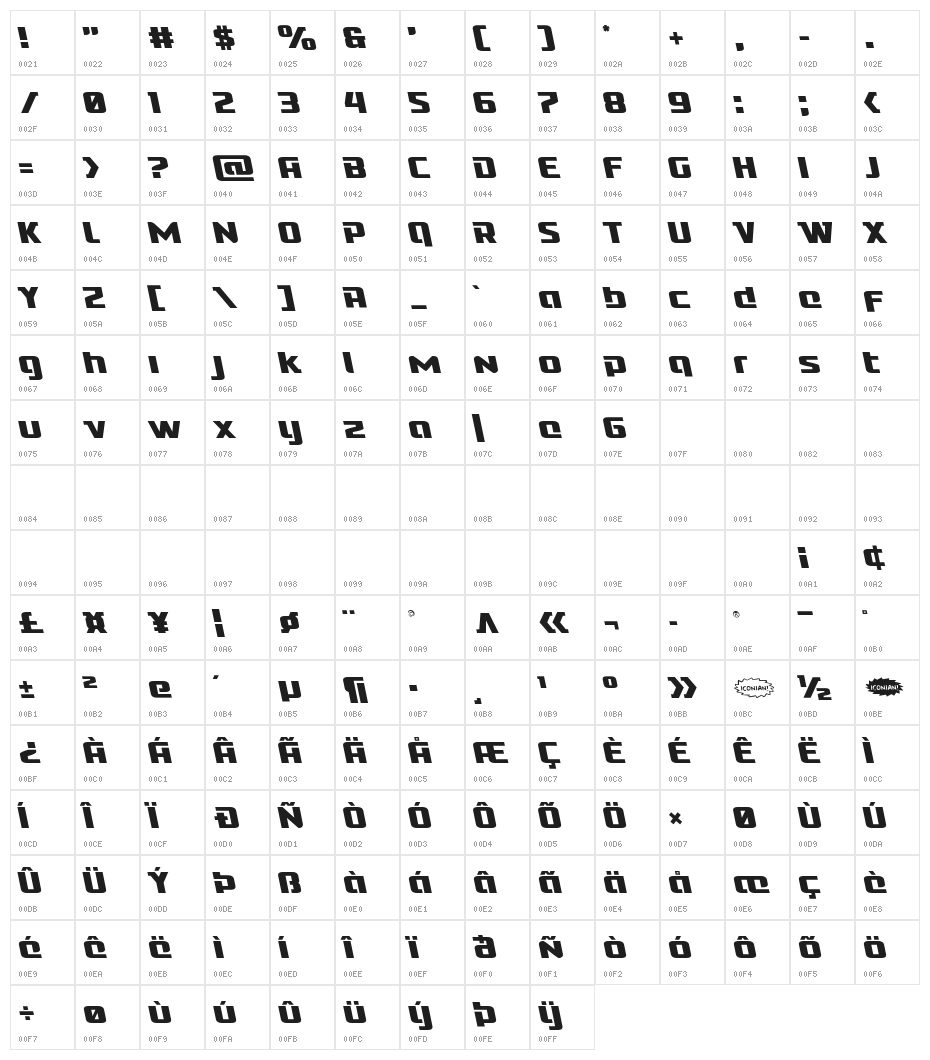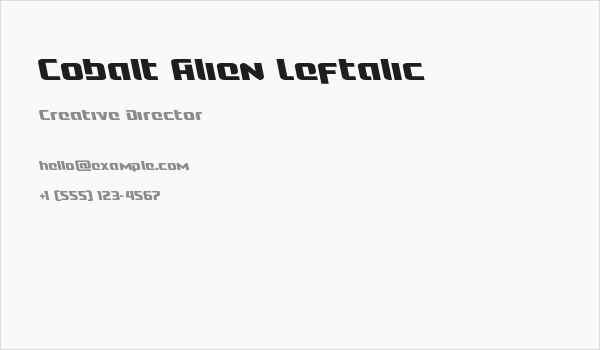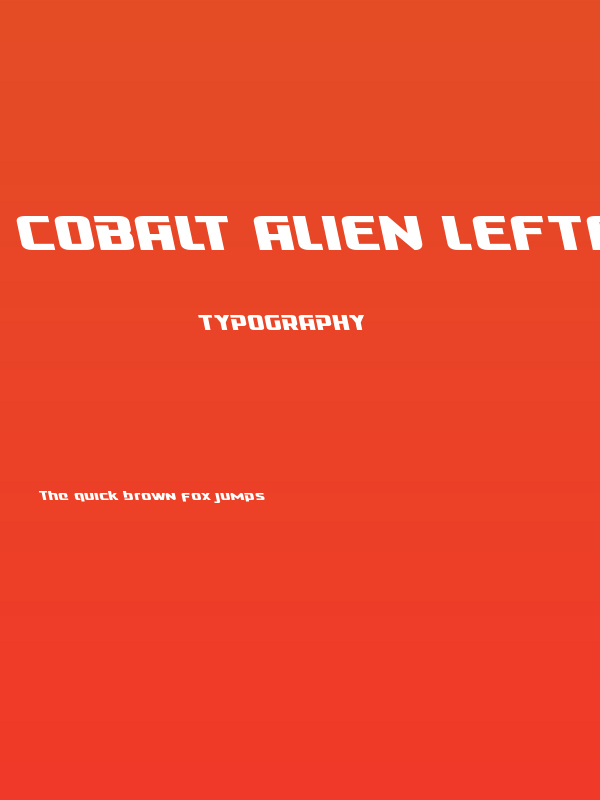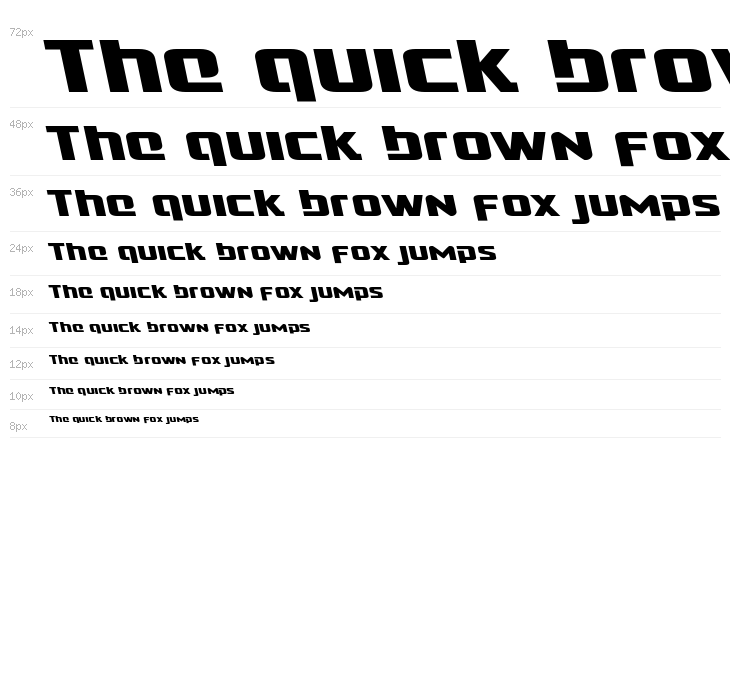
Cobalt Alien Leftalic Font
Cobalt Alien Leftalic Description
This font features a futuristic and angular design, characterized by its bold and geometric letterforms. The characters have a distinct slant, giving them a dynamic and forward-moving appearance. The strokes are thick and consistent, with minimal contrast, creating a strong and impactful visual presence. The overall style is modern and somewhat industrial, making it suitable for projects that require a bold and assertive look. The spacing between characters is tight, enhancing the compact and cohesive feel of the text.
| Overall Style | Futuristic, Industrial |
| Proposed Projects | Ideal for sci-fi themed designs, technology branding, video game titles, and posters. |